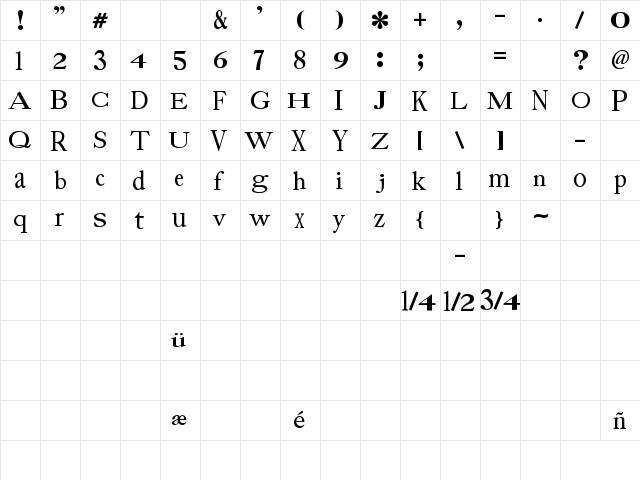
Prissy Frat Boy Regular
Design Context for Prissy Frat Boy Typeface
Prissy Frat Boy offers clean, dependable letterforms without strong stylistic allegiance, making it a practical choice for designers who need flexibility.
Pro Tip: Use Prissy Frat Boy in both headline and body roles to test its range before committing to a single application.